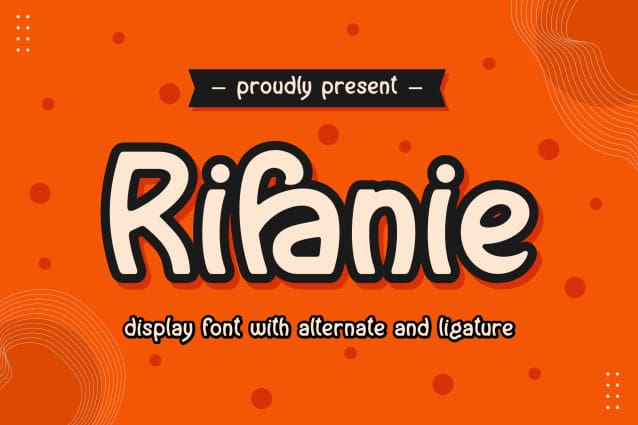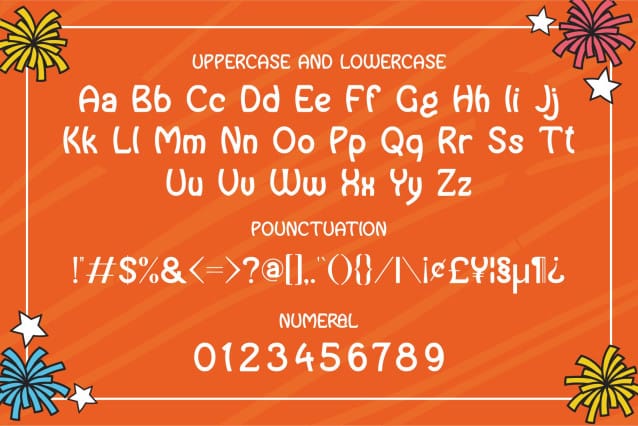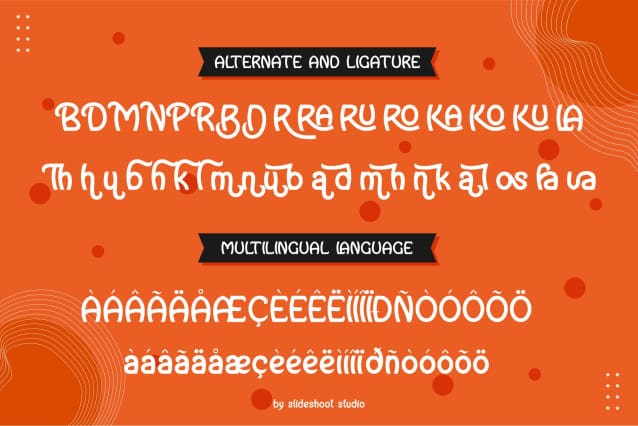
Rifanie Font
Rifanie Font – An elegant modern display font. Its clean and minimalistic works wonderfully on its own for logos, headlines, posters, packaging and many more! And with Three different weights to choose, your option to create more unique and versatile design is a lot wider. Have fun and create more.. Your Imagination only your limit!!
Designer Name: SlideShoot